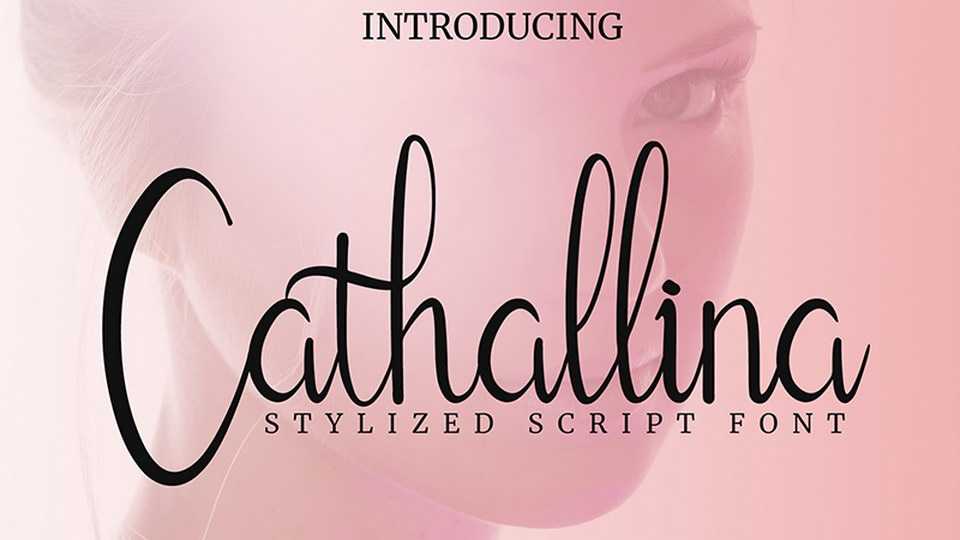
Download Cathallina font, a charming script, inspired by a combination of tenderness and beauty. Cathallina font perfectly suits for wedding design, social media, quotes, apparel, logos and more.